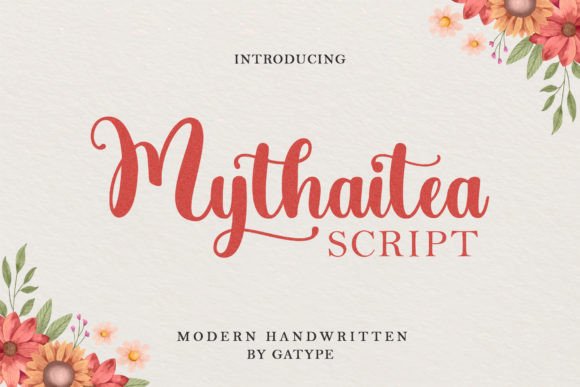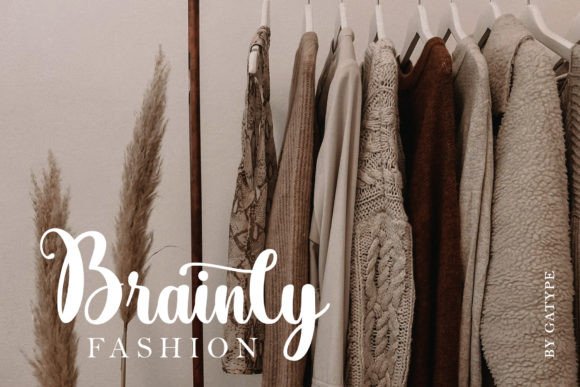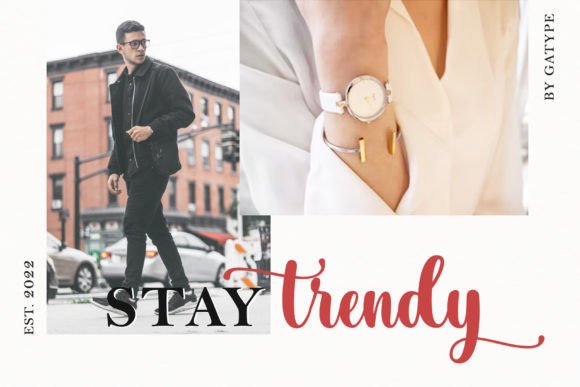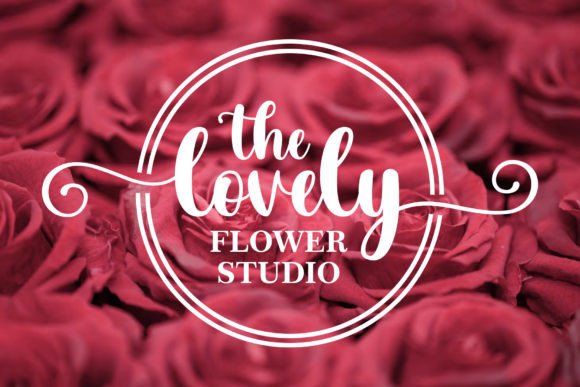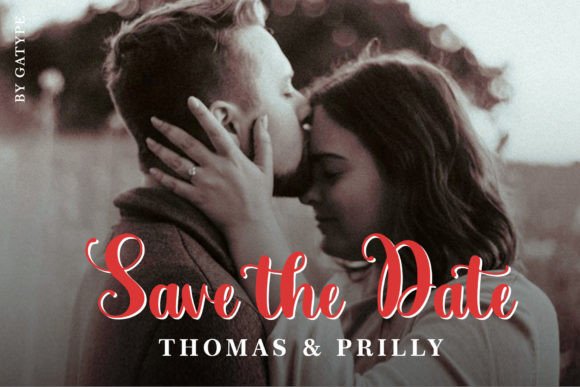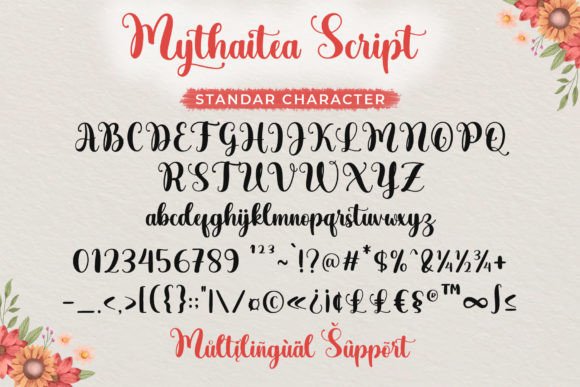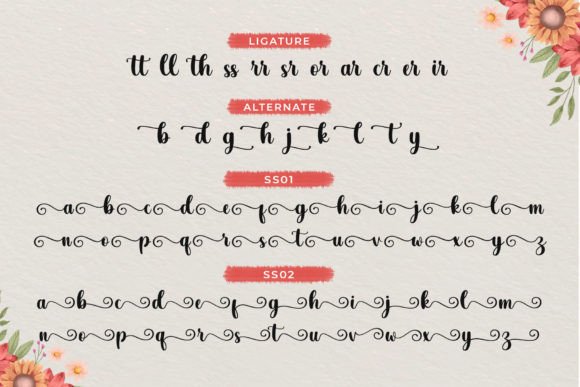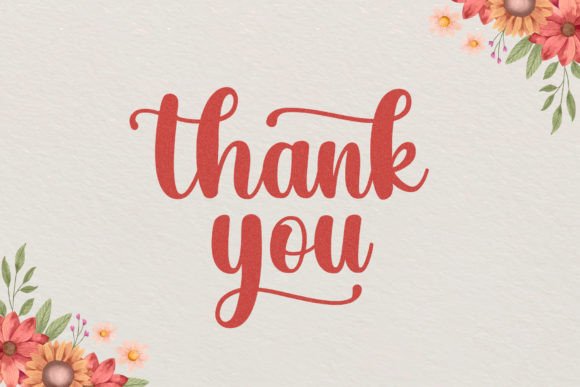
Mythaitea Font
About Mythaitea Font
“Mythaitea Script” is a modern and smooth font designed for various purposes. Its versatility makes it suitable for a wide range of applications, including logos, product packaging, wedding invitations, branding, headlines, signage, labels, signatures, book covers, posters, quotes, and more.
The modern and smooth design of “Mythaitea Script” ensures that it adds a contemporary touch to your creative projects. Whether you’re creating a brand identity, designing wedding invitations, or working on product packaging, this font is crafted to provide a sleek and stylish aesthetic.
One notable feature of “Mythaitea Script” is its PUA encoding, allowing easy access to a variety of glyphs and ligatures. This functionality enhances your ability to customize and personalize your designs effortlessly, providing you with creative freedom.
Imagine the impact of “Mythaitea Script” on your product packaging—it transforms the text into a sleek and modern representation of your brand. In wedding invitations or signage, it adds a touch of sophistication, creating an elegant and memorable impression. Applied to quotes or posters, it becomes the key element that enhances the overall visual appeal with its modern and smooth script.
Incorporate “Mythaitea Script” into your design toolkit and explore how it elevates your creative projects. Let its modern and smooth design be the defining feature that adds a contemporary touch to your designs. Whether you’re working on digital or print projects, “Mythaitea Script” offers a versatile and expressive solution for your typographic needs.